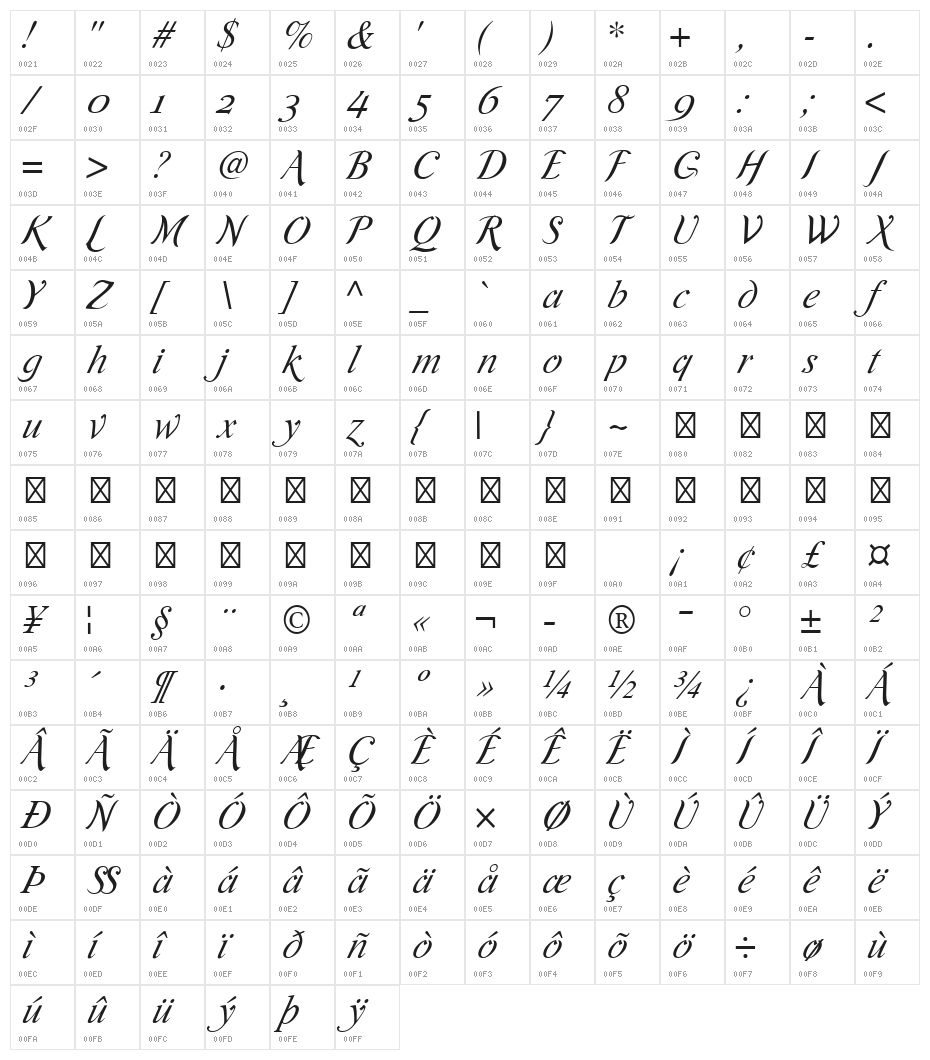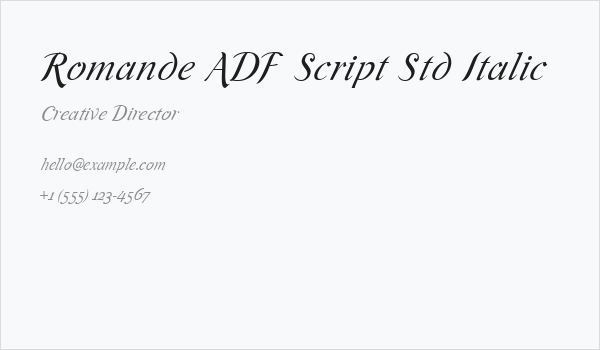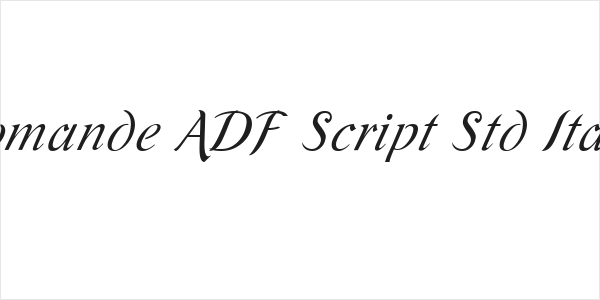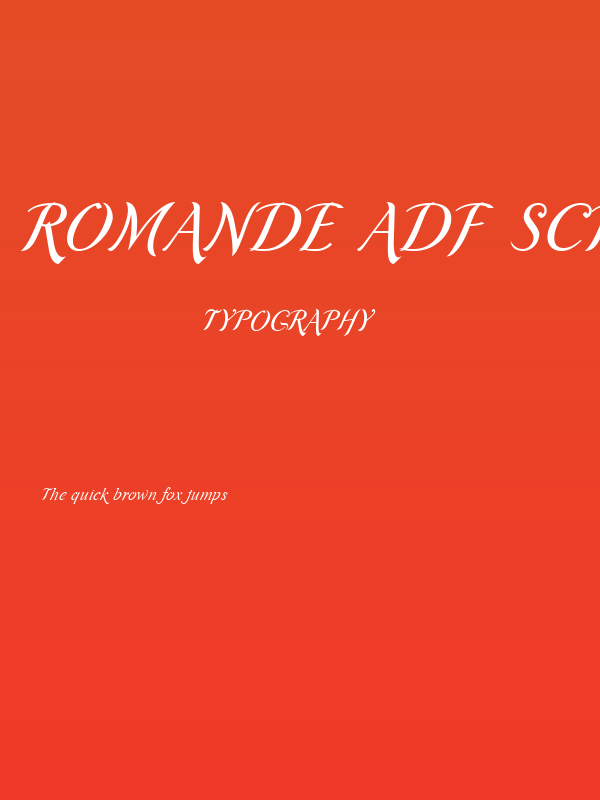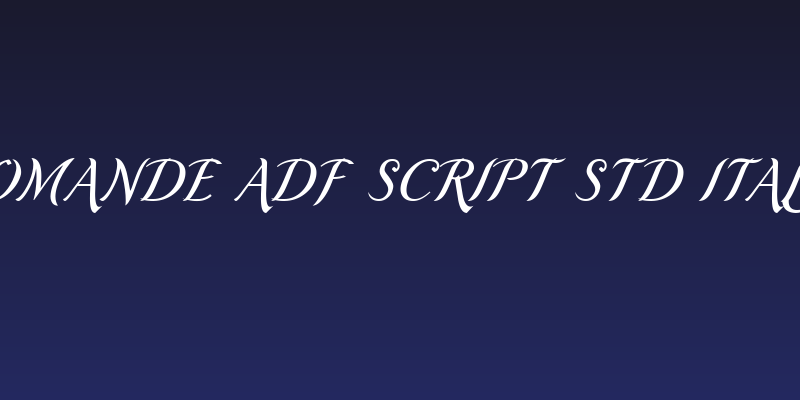
Romande ADF Script Std Italic Font
Romande ADF Script Std Italic Description
This elegant script font features a flowing, cursive style with a sophisticated flair. The characters are gracefully slanted, giving a sense of motion and fluidity. The uppercase letters are ornate, with sweeping curves and delicate serifs, while the lowercase letters maintain a consistent slant and smooth connections. The numerals are stylish and complement the overall aesthetic, adding a touch of class. Special characters are designed with the same attention to detail, ensuring a cohesive look across all elements. The font's italic nature enhances its elegance, making it suitable for formal and decorative purposes.
| Overall Style | Elegant, Decorative |
| Use Case | Headlines, Invitations, Branding |
| Proposed Projects | Ideal for wedding invitations, elegant branding, formal event programs, and decorative headings. |